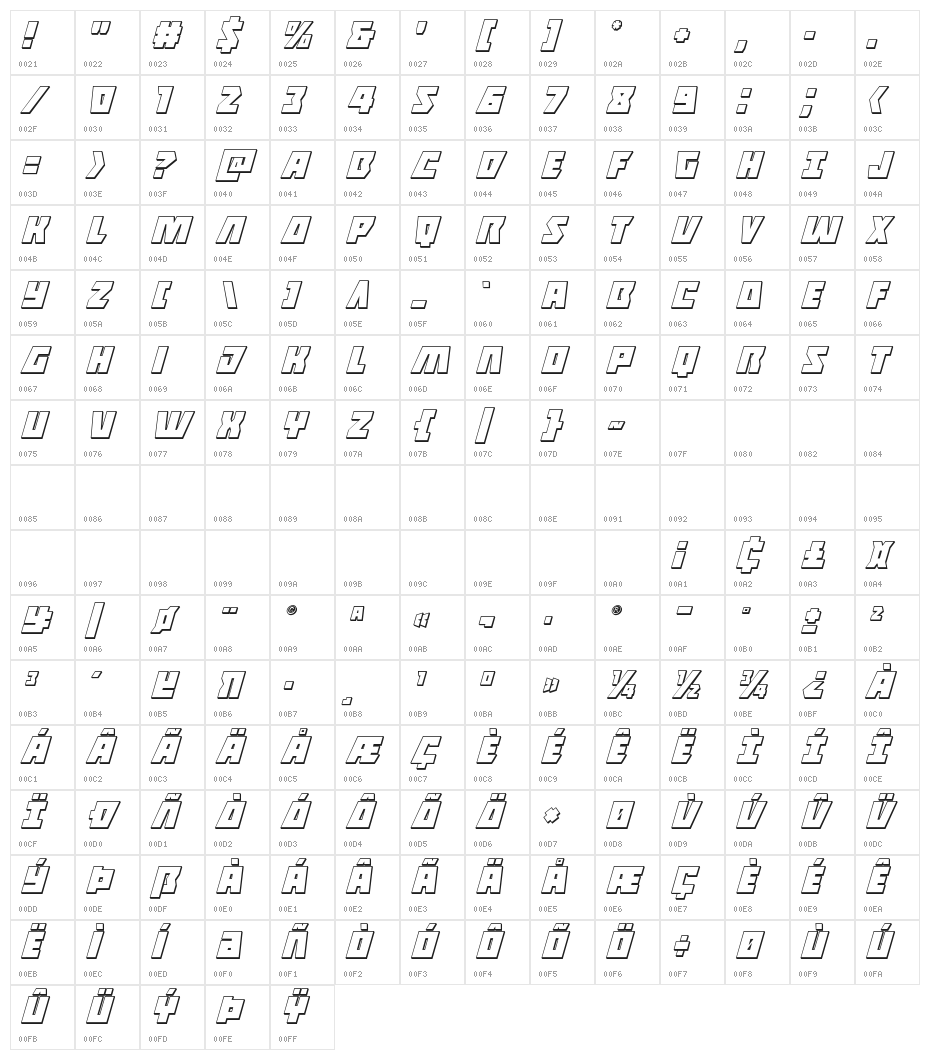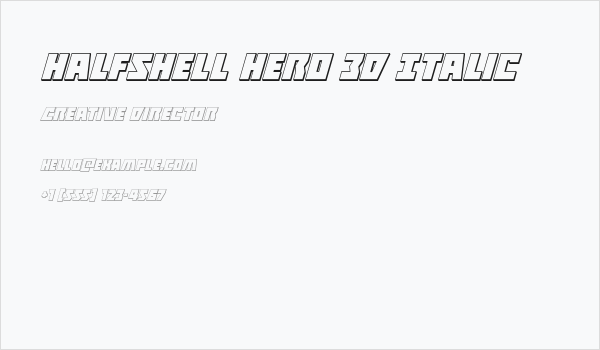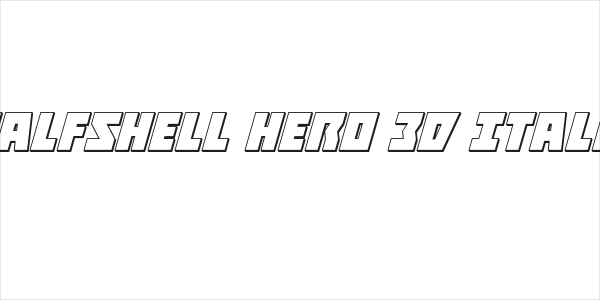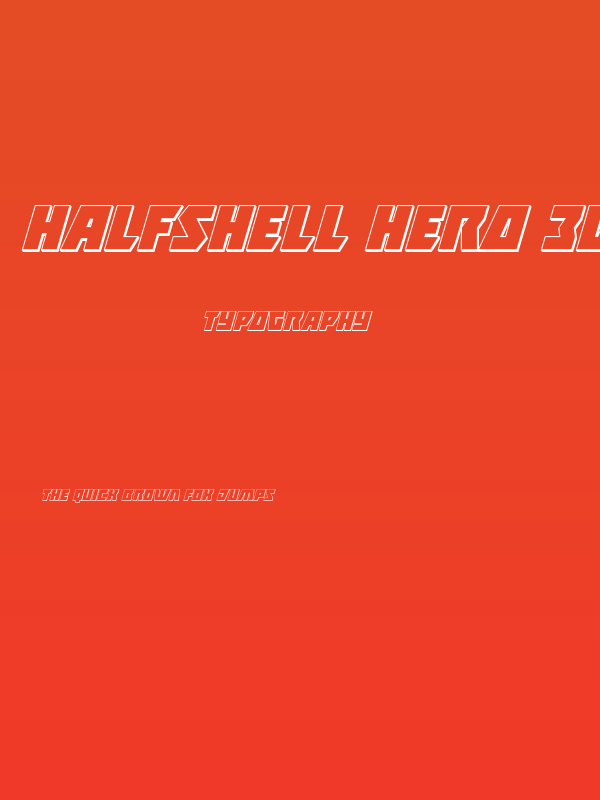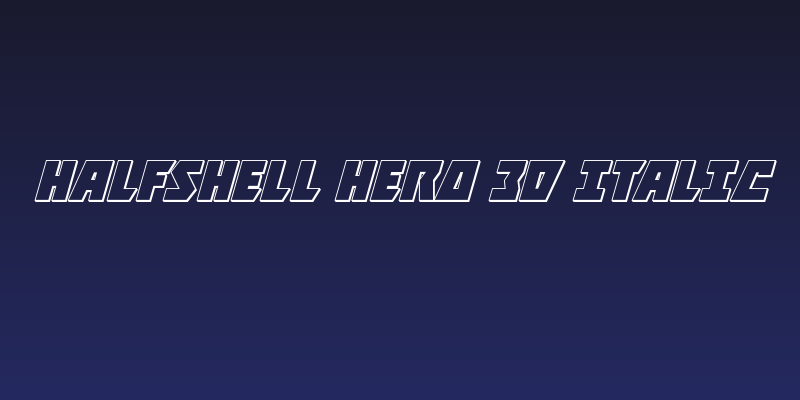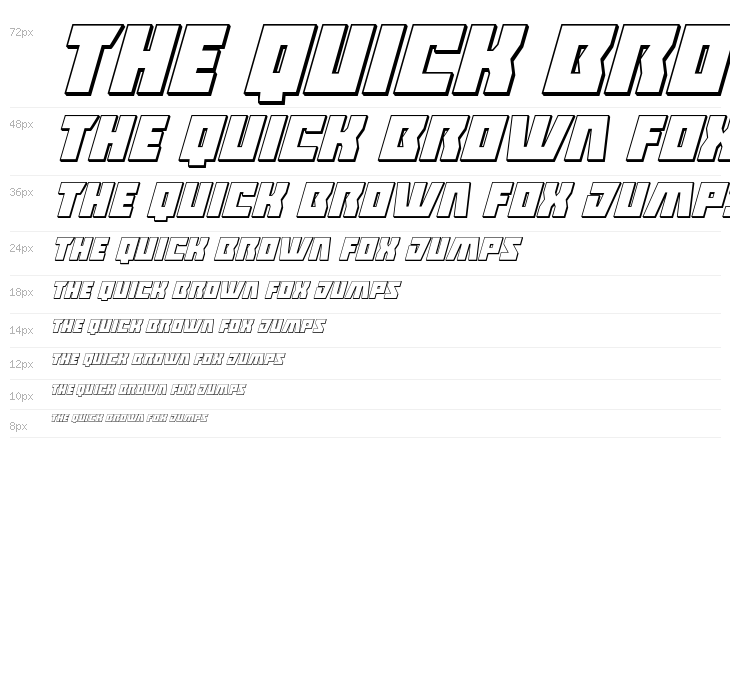
Halfshell Hero 3D Italic Font
Halfshell Hero 3D Italic Description
This font features a bold, three-dimensional design with an italic slant, giving it a dynamic and modern appearance. The letters are outlined, creating a striking visual effect that enhances their boldness. The geometric shapes and angular lines contribute to a futuristic and edgy style, making it stand out in any design. The uppercase and lowercase letters maintain a consistent style, while the numbers and special characters are designed to match the overall aesthetic. The font's unique 3D effect is achieved through the clever use of shading and perspective, adding depth and dimension to the characters.
| Proposed Projects | Ideal for video game titles, movie posters, tech branding, and futuristic-themed designs. |